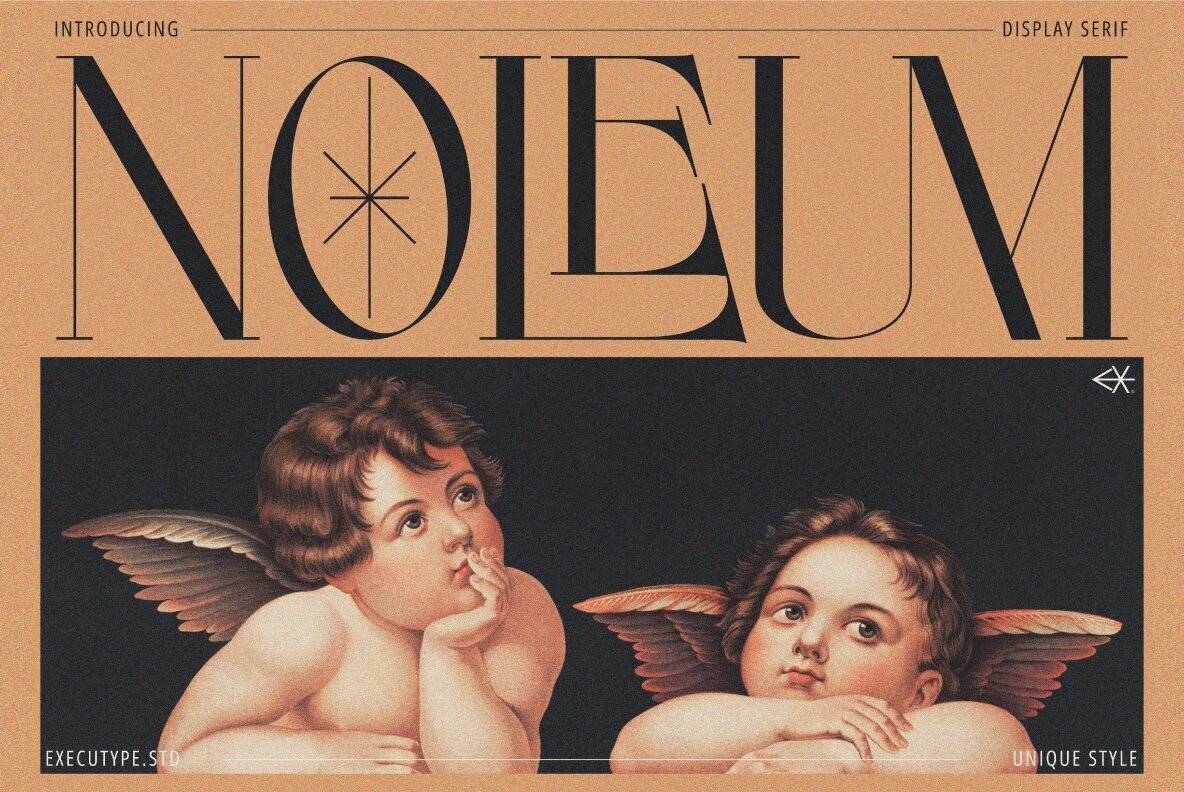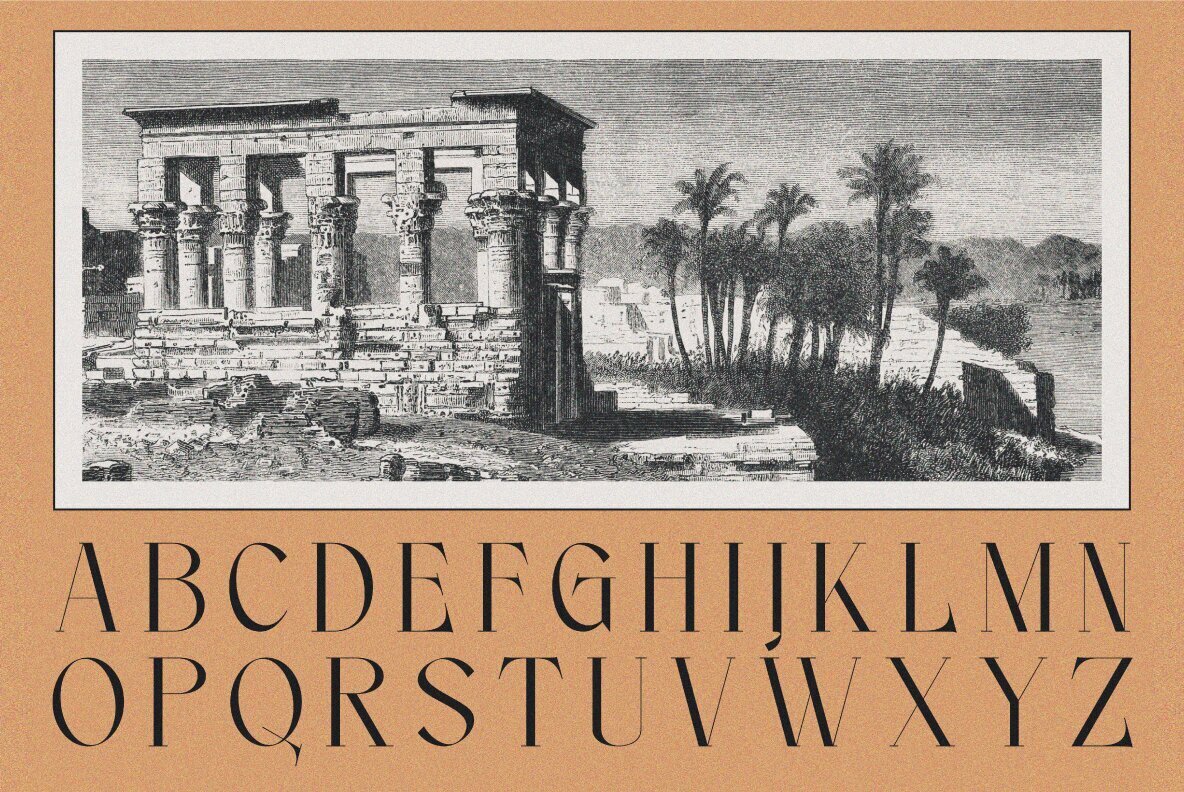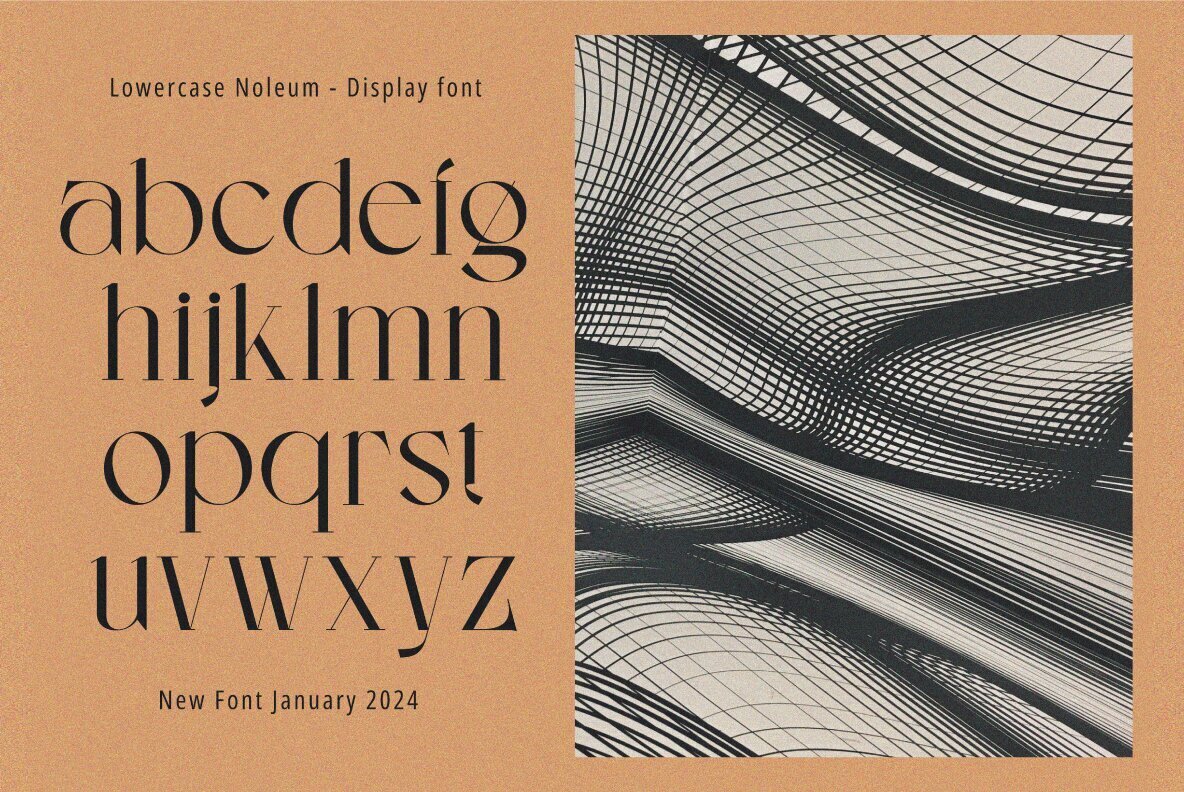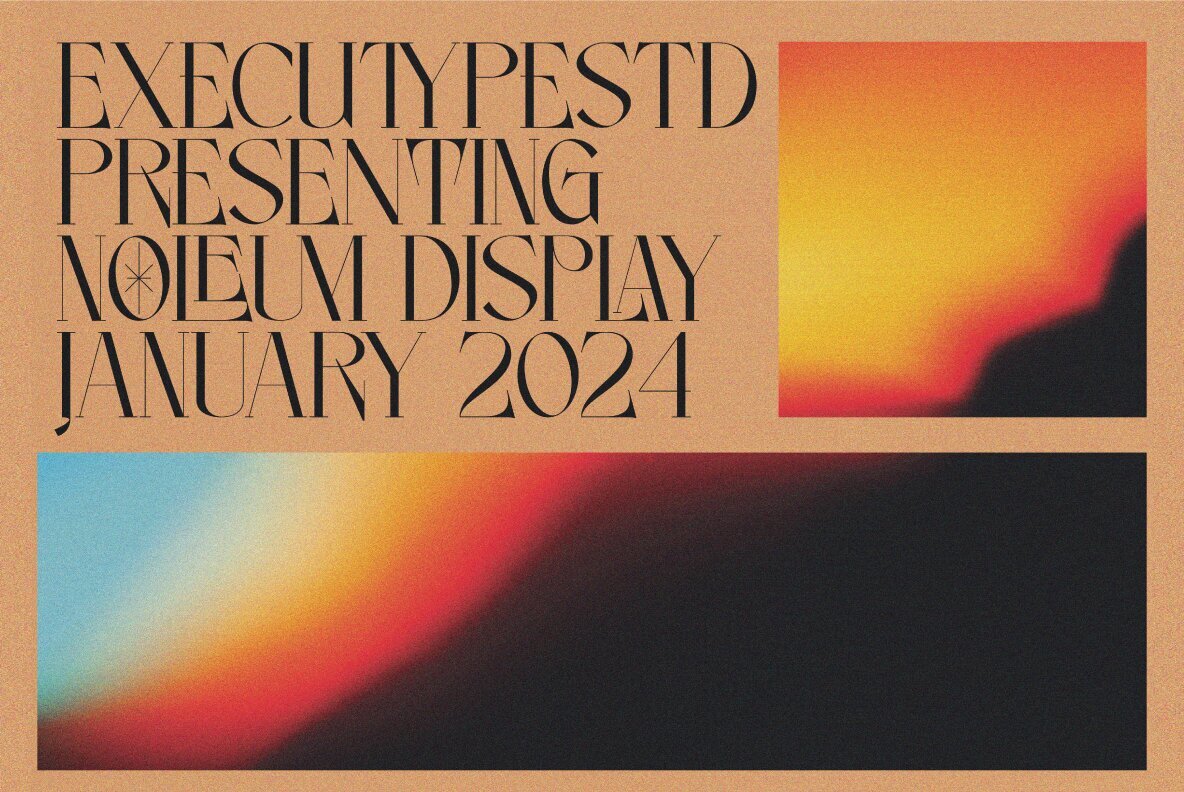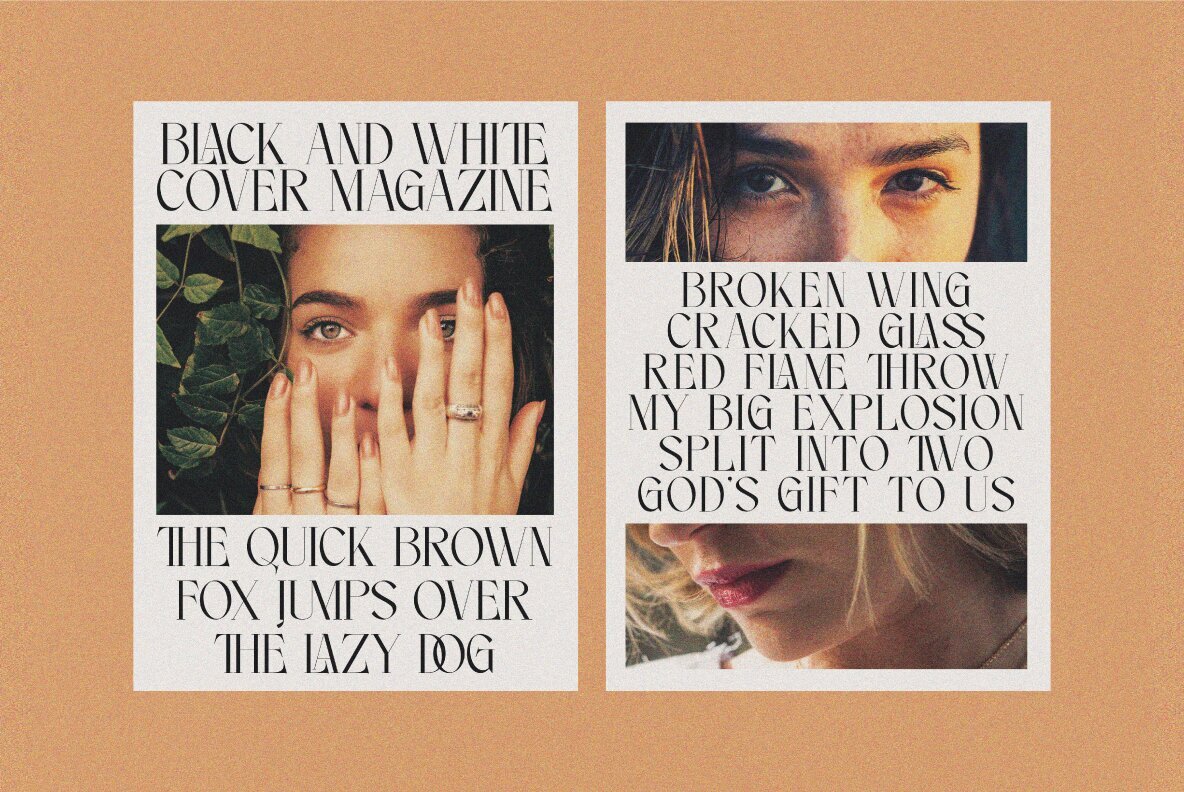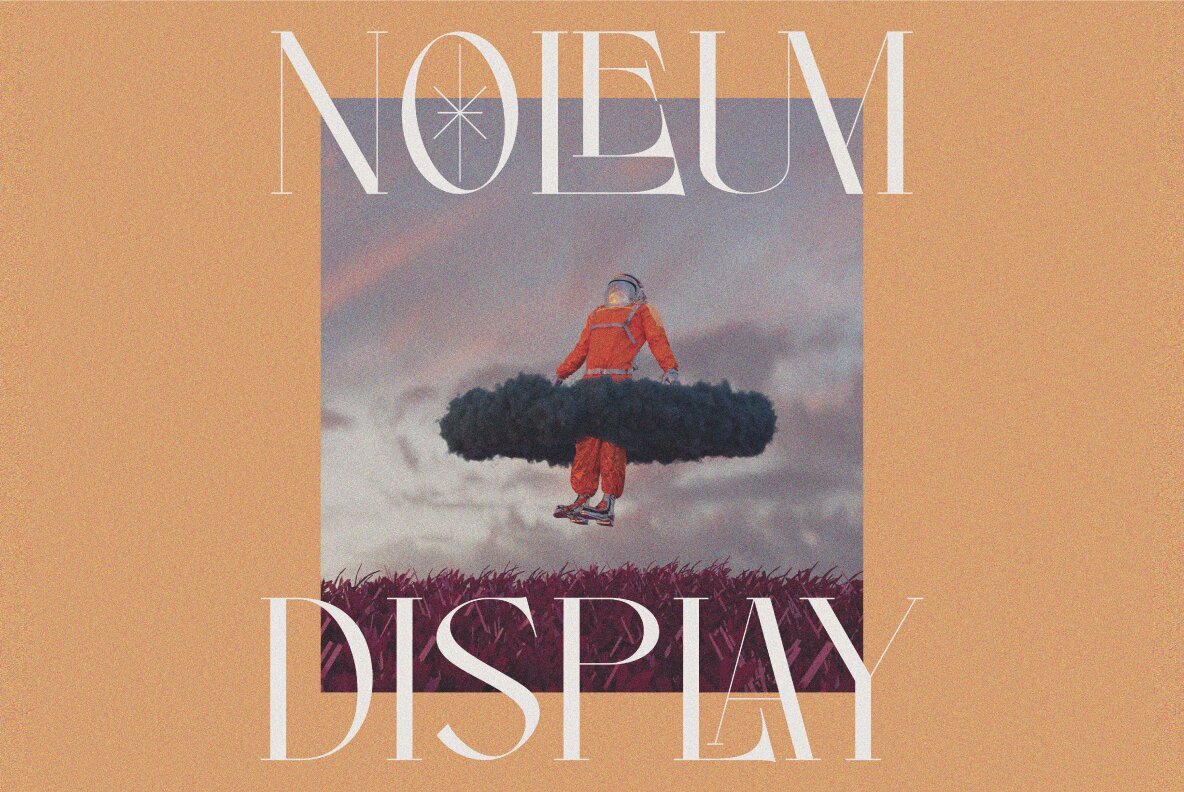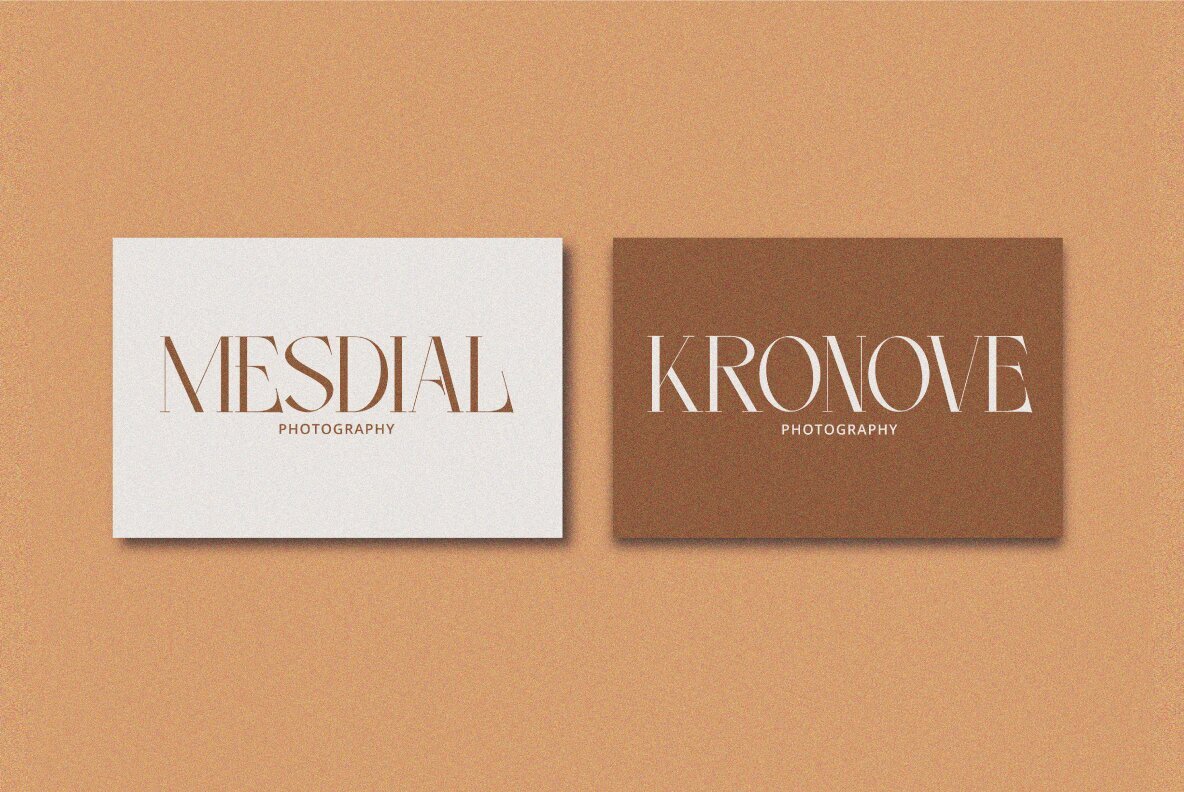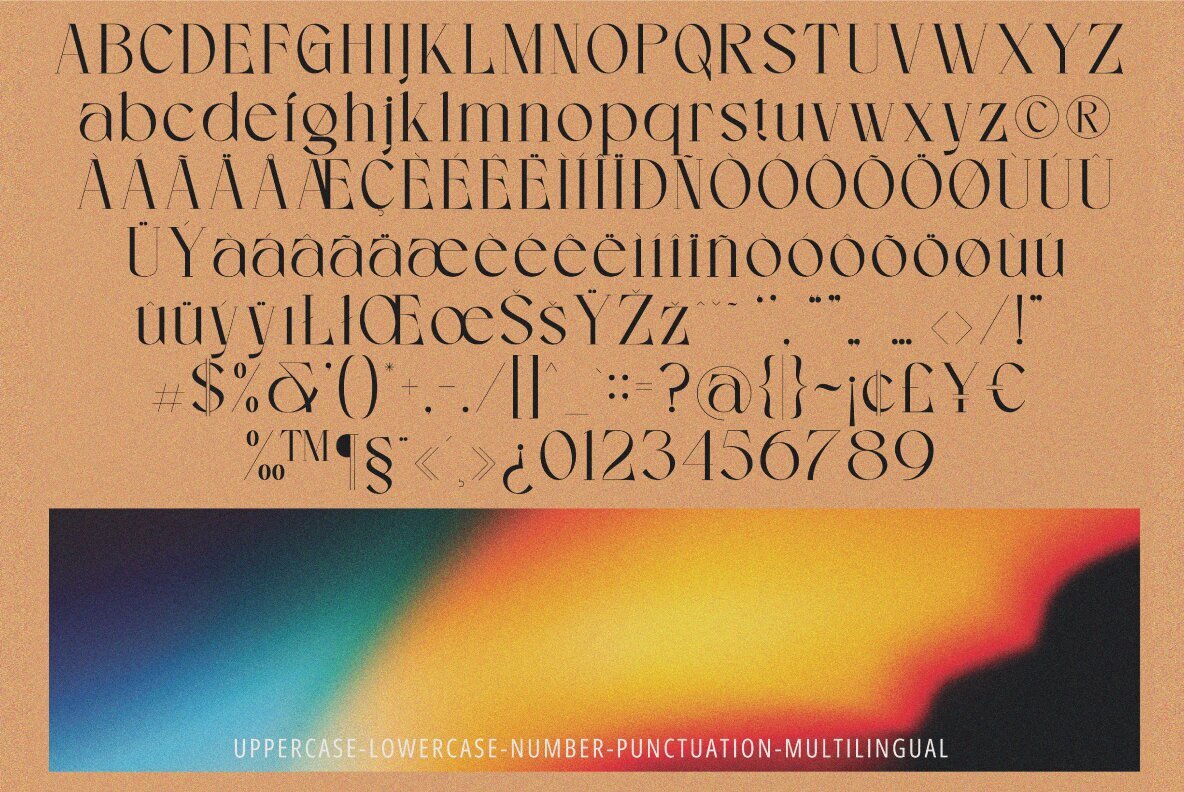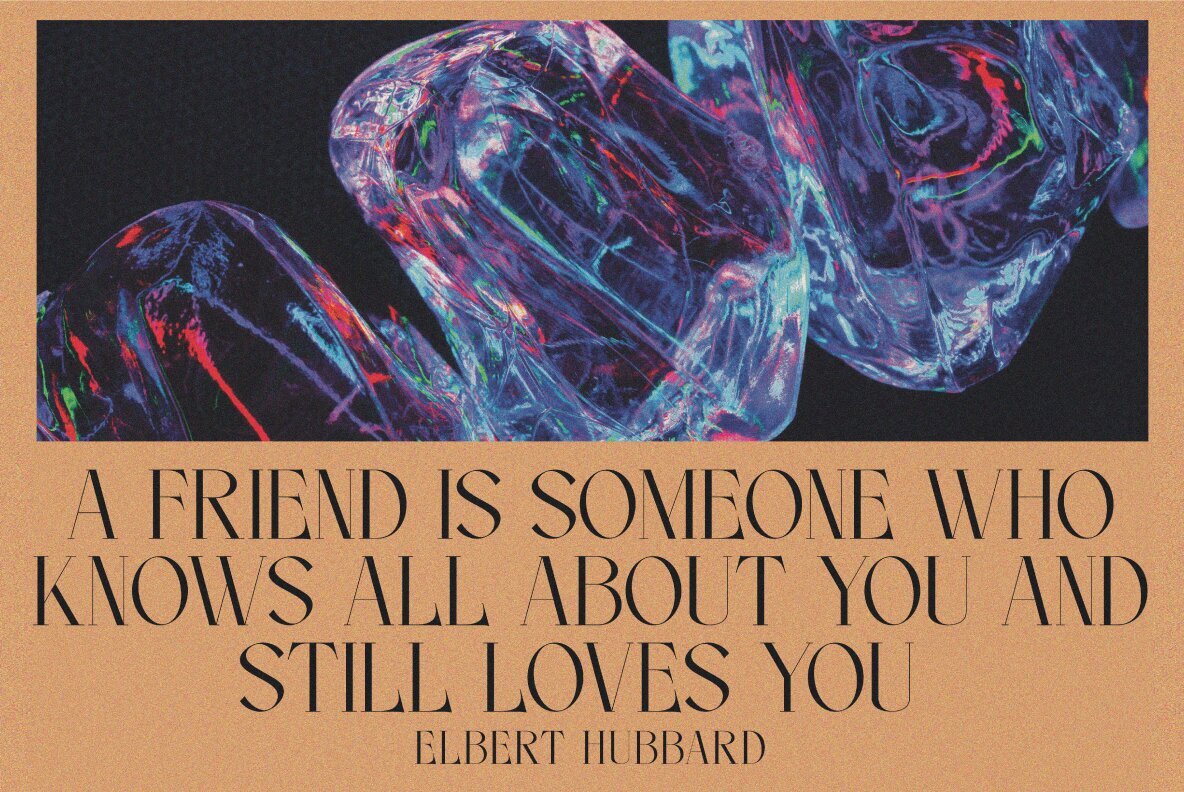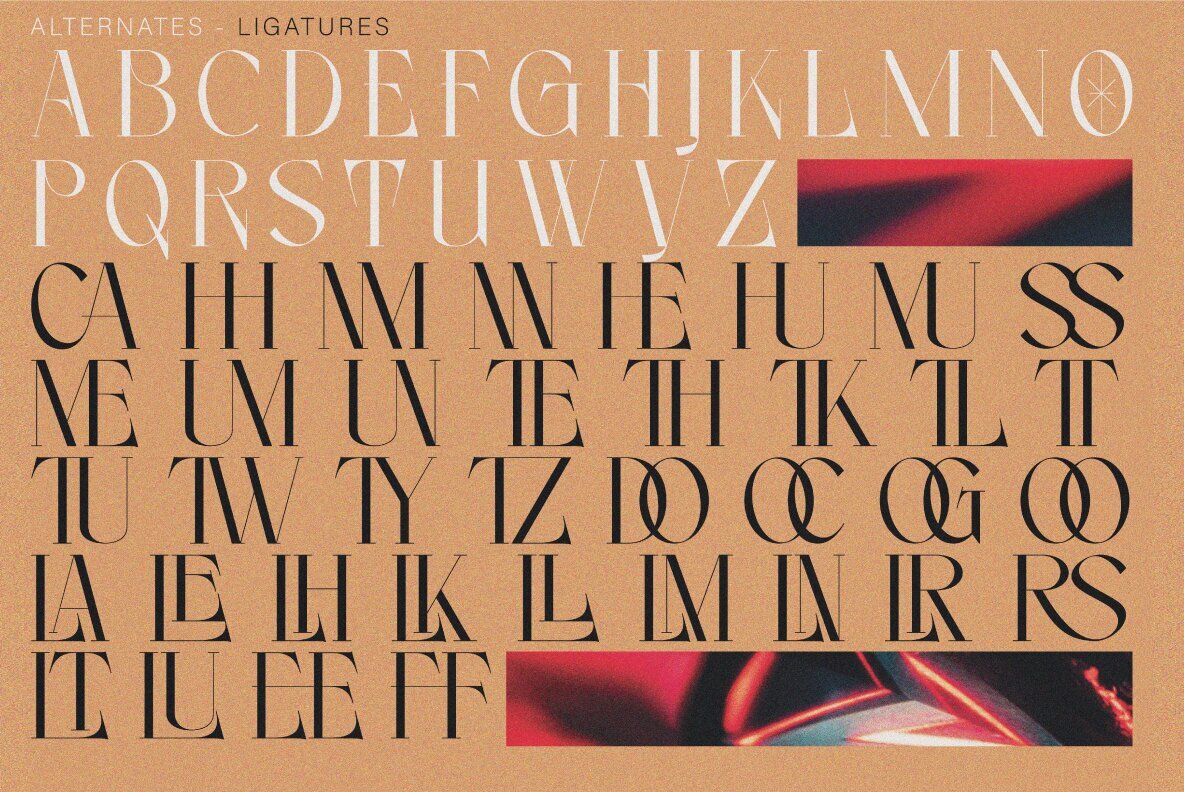
Noleum Font
Noleum Display Serif Regular
Noleum Display Serif brings a fresh, contemporary take on the traditional serif, featuring dynamic letterforms and a captivating dance-like baseline. Ideal for creating memorable invitations, brand materials, business cards, and posters, this typeface adds a touch of sophistication to any project.Noleum Display Serif: Bold Elegance for Modern Design
Versatile Functionality
Noleum Display Serif promises to be a valuable addition to any designer's toolkit, enhancing both formal and creative expression.